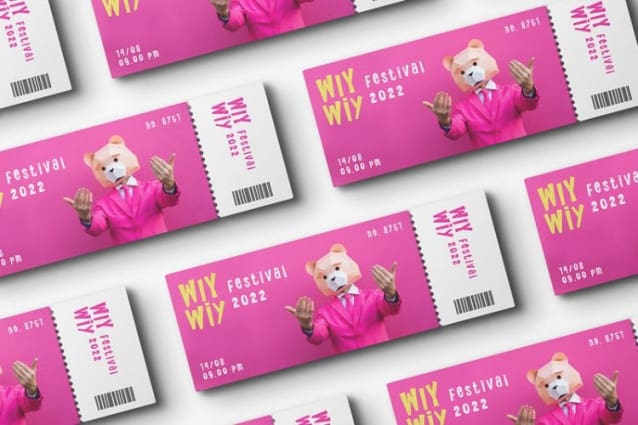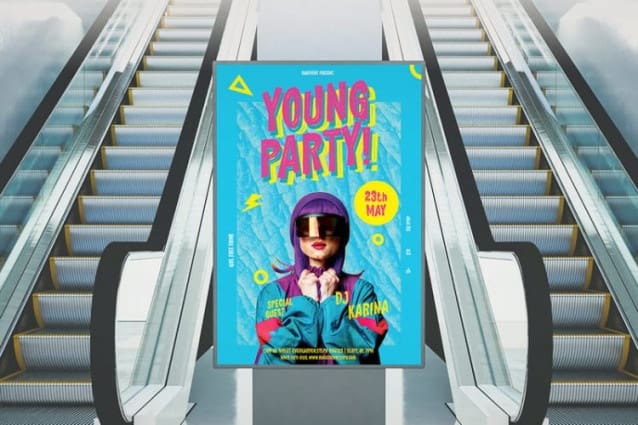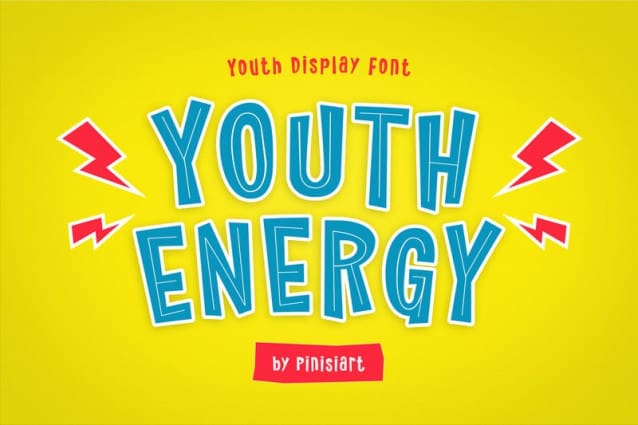
Youth Energy Font
Youth Energy Font is a stylish and versatile display font that is perfect for a wide range of design projects. Its sleek and modern sans-serif design gives it a cool and contemporary feel, while its bold and eye-catching letters make it ideal for use in headlines, titles, and other attention-grabbing design elements.
Whether you’re creating graphics for social media, designing a flyer for a music event, or crafting a poster for a movie premiere, Youth Energy is the perfect font to bring your vision to life. With its youthful and energetic vibe, it’s the ideal choice for any project that requires a touch of fun and excitement.